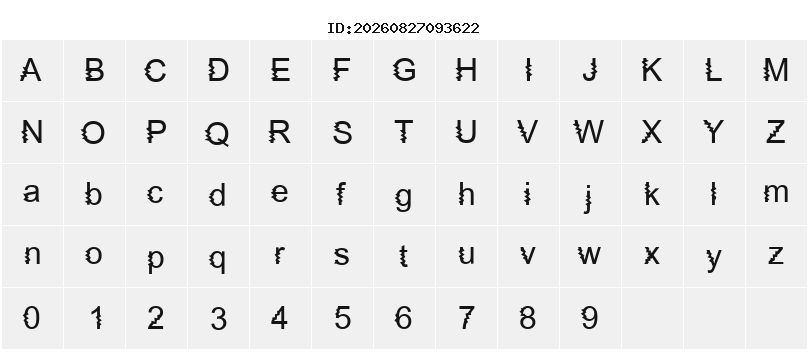
363-CAI978 Preview
About 363-CAI978.ttf
363-CAI978.ttf is a modern, elegant sans-serif font designed for ultimate readability and visual harmony. Perfect for branding, headlines, web design, and print materials.